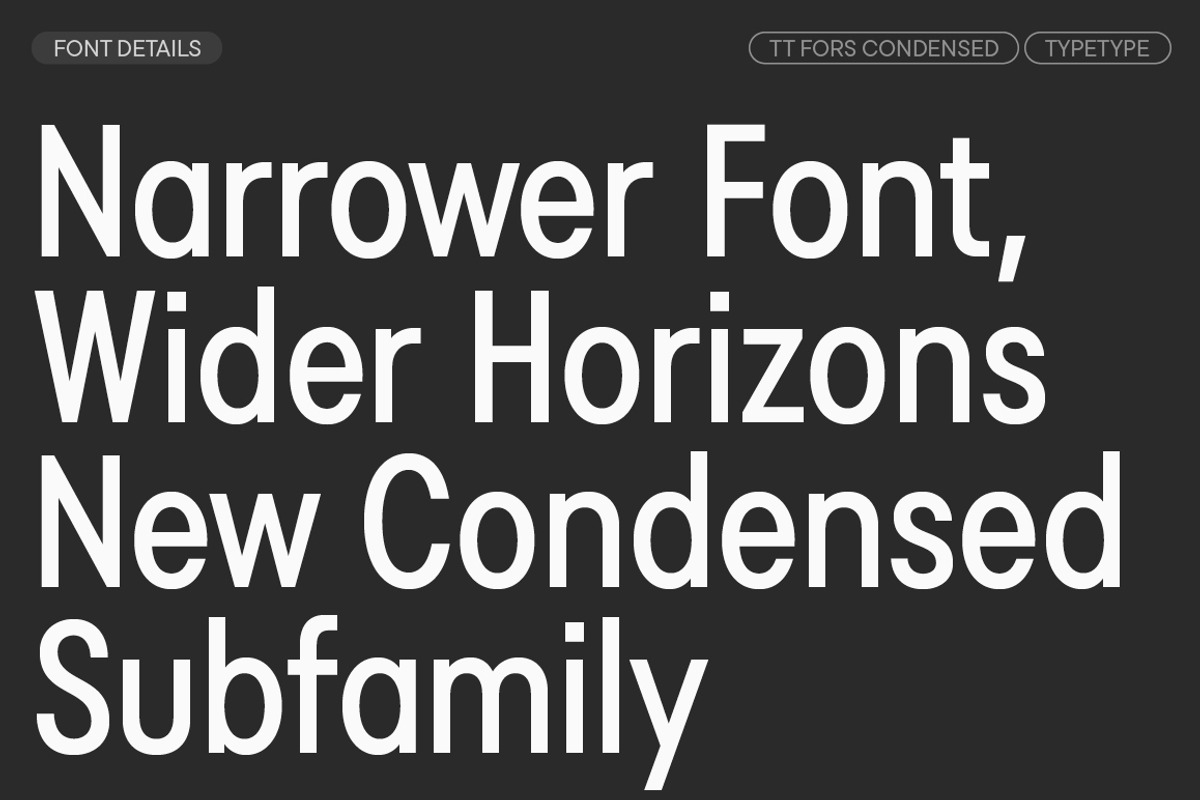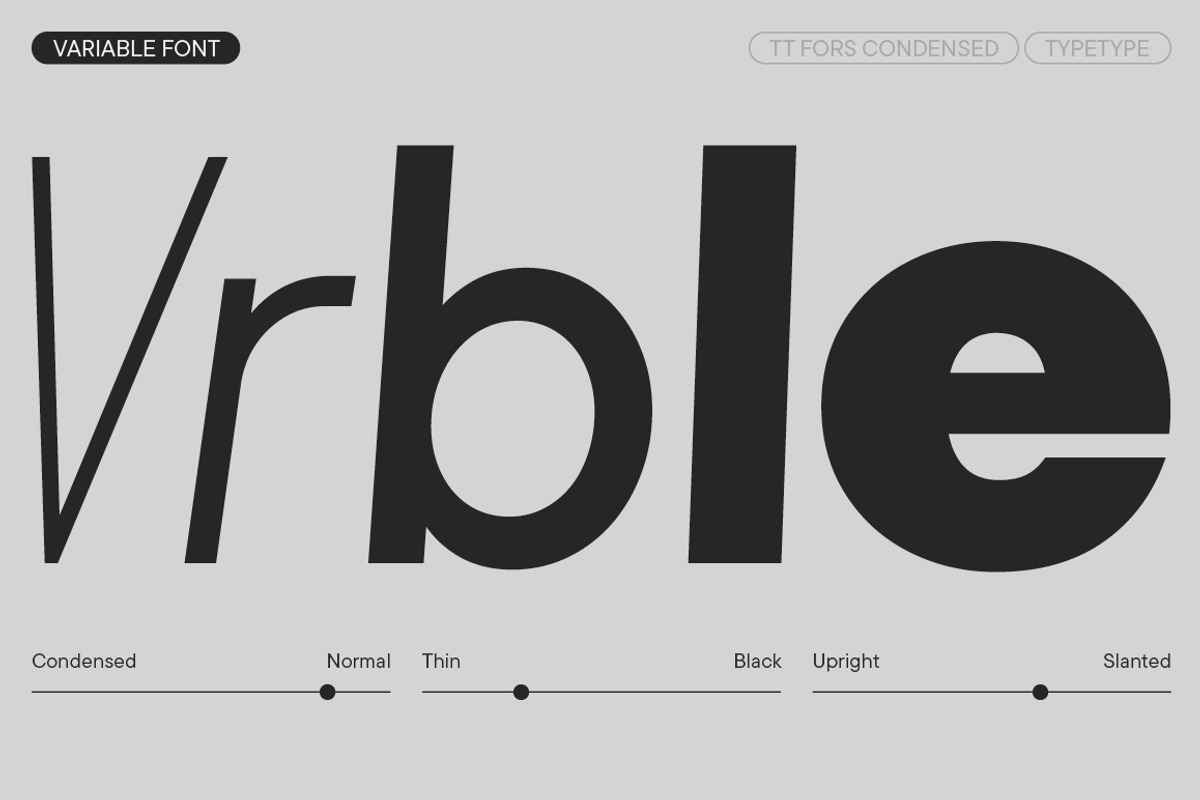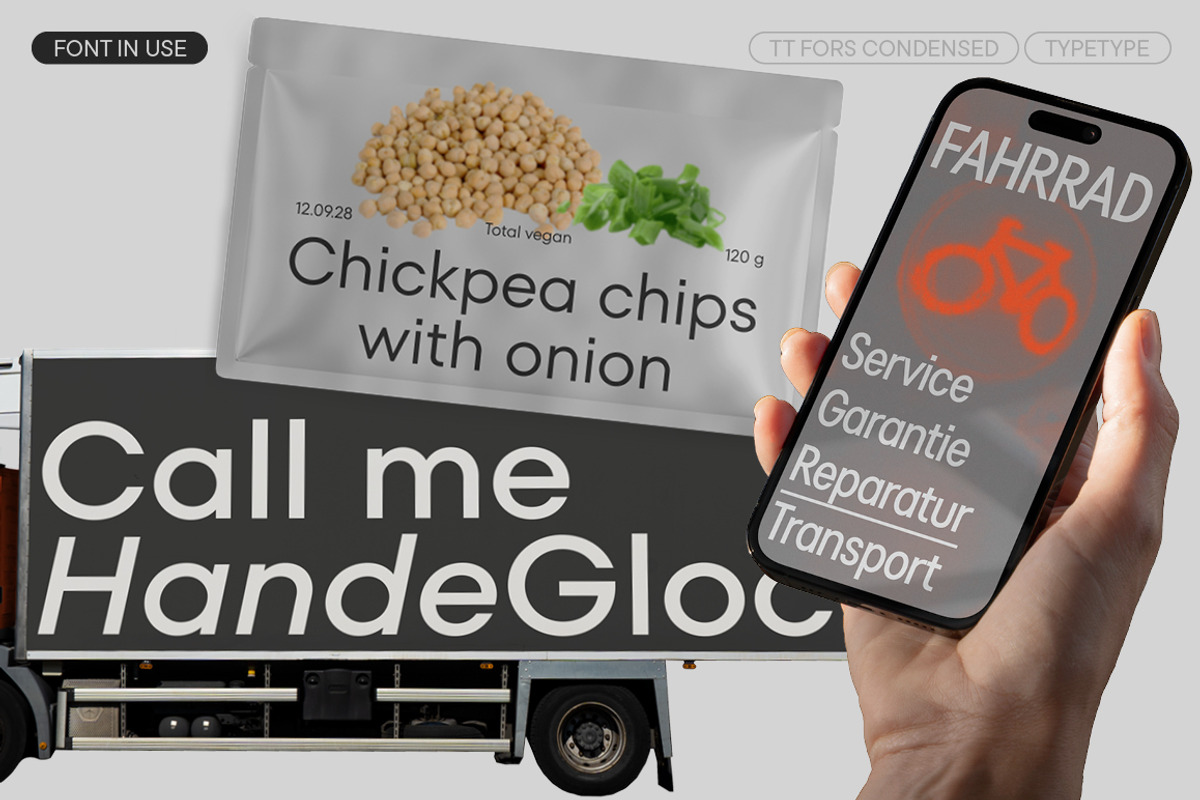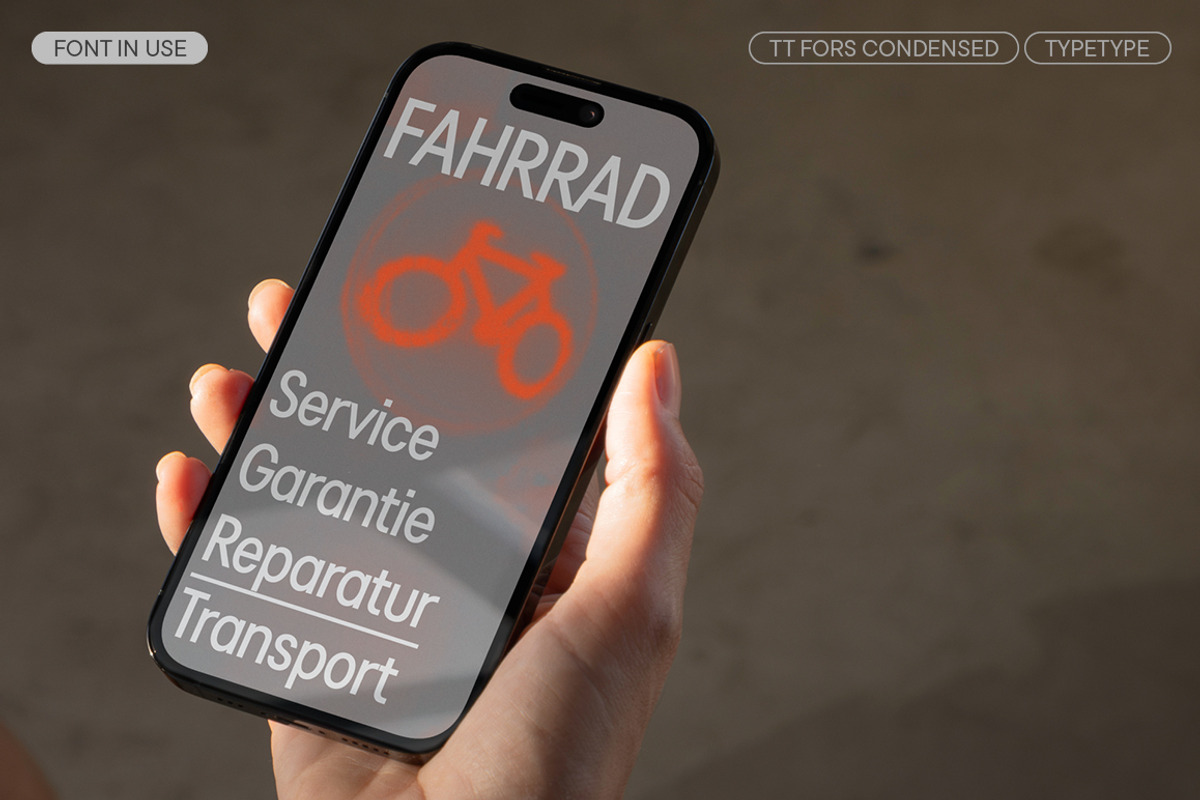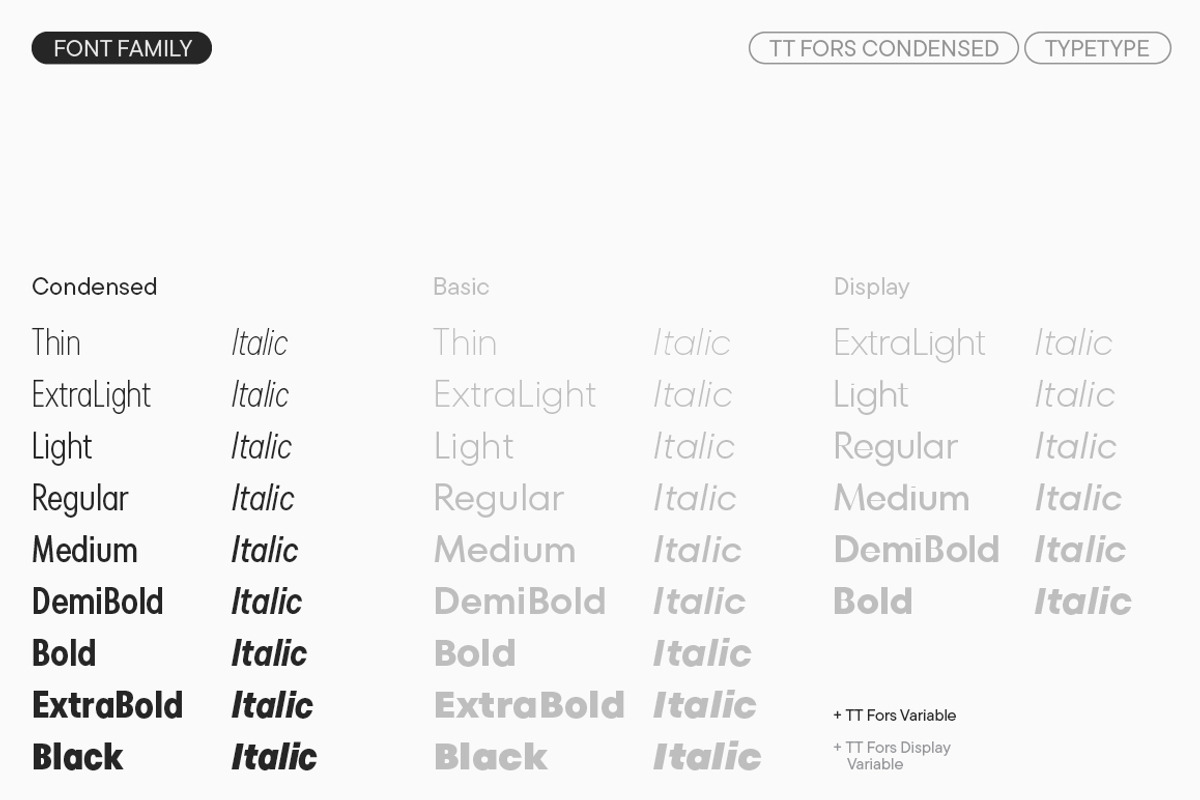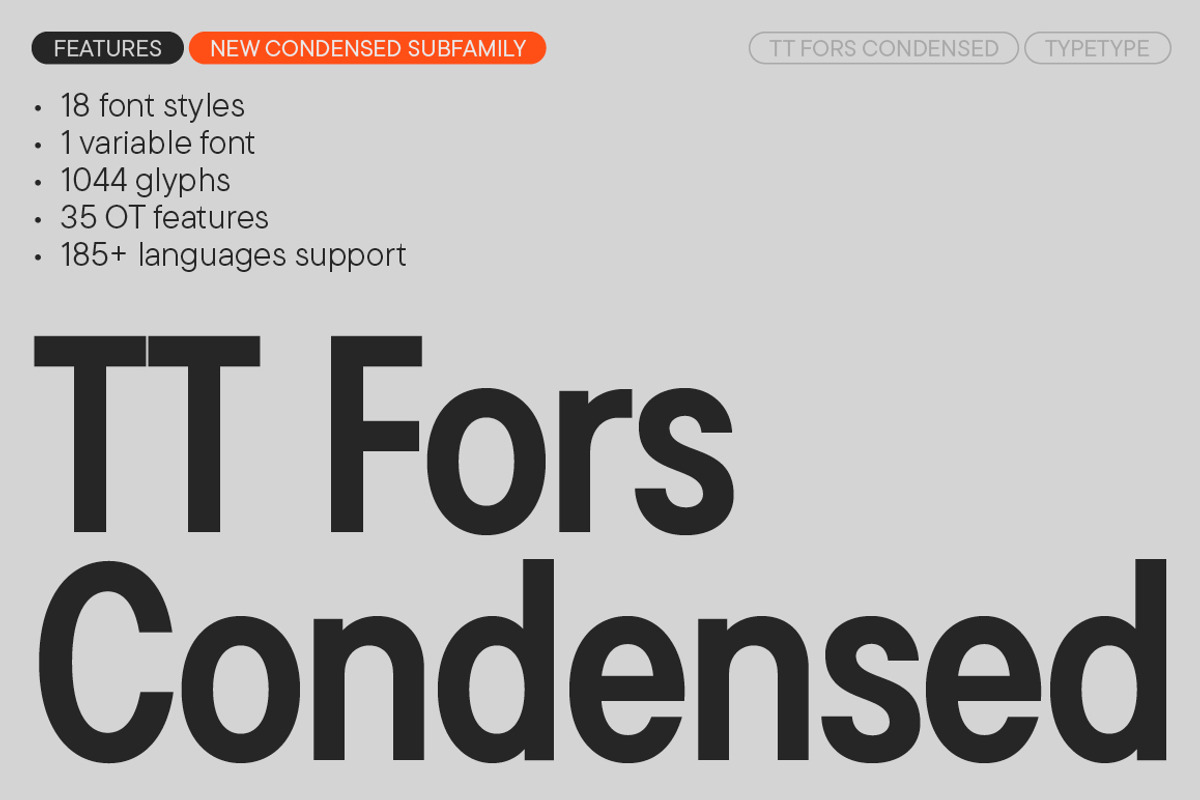
TT Fors Condensed
Introducing the legendary TT Fors version 2.000!
TT Fors Condensed is a Condensed version of our TT Fors font family:
- TT Fors Condensed - 18 styles
This functional and aesthetic typeface from the TypeType’s basic font collection has become even better: we’ve added a new subfamily, updated kerning and hinting, and enhanced the variable font.
TT Fors is a geometric sans-serif with a neutral personality and refined proportions. The typeface complements TypeType’s line of versatile sans-serifs, which already includes families like TT Norms® Pro, TT Commons™ Pro, TT Hoves Pro, TT Interphases Pro, and TT Firs Neue.
The inspiration for creating TT Fors came from studying geometric sans-serifs from the early to mid-20th century and analyzing their contribution to the visual environment of that time. At the same time, we aimed to create an advanced and highly adaptable font that can be used for any modern tasks—from branding and packaging to digital interfaces and apps. The name itself reflects its versatility: Fors derives from the word «for».
The characters in TT Fors have dynamic proportions. Their forms are as close as possible to basic geometric shapes (circle, triangle, square). Rounded characters tend towards a perfect circle, while others have narrower proportions. Sufficiently tall lowercase characters make the font even more functional. And the carefully designed geometric forms and unified construction rules allow TT Fors to be used in both large and very small point sizes.
In the display version, it was important for us to preserve the font’s clean aesthetic while introducing subtle nuances. The proportions and shapes of characters in TT Fors Display remain recognizable, but with a distinctive touch—high-contrast symbols that add character while maintaining uniformity. The set tends towards uniformity, and slightly closed terminals underscore the character of the entire typeface.
A large number of OpenType features allows designers to adapt the font to their tastes and needs. TT Fors includes ligatures, circled figures, arrows, and other stylistic alternatives and features. Additionally, the typeface includes two variable fonts. The display subfamily has two variable axes—weight and slope, while the basic subfamily has three—weight, width, and slope.
TT Fors includes:
- 50 styles: 18 upright, 18 italic, and 1 variable font in the main subfamily (Basic + Condensed), 6 upright, 6 italic, and 1 variable font in the display subfamily
- 1,044 characters in each basic subfamily style, 813 characters in each Display subfamily style
- 35 OpenType features in the basic subfamily and 36 in the Display subfamily
- Support for 185+ languages
TT Fors: A font created with you in mind!